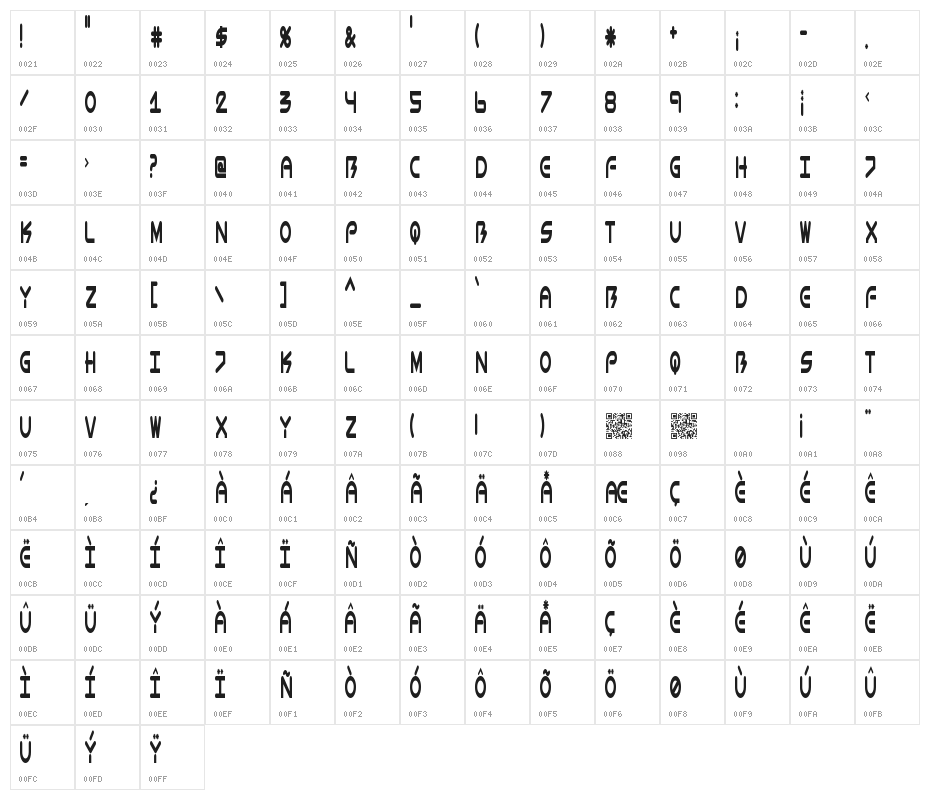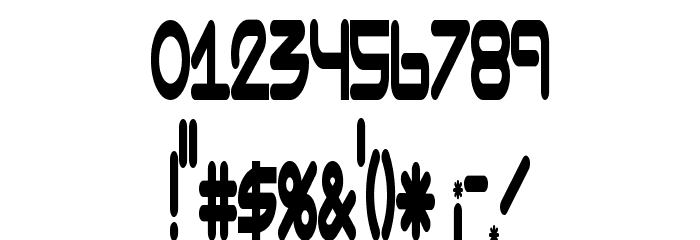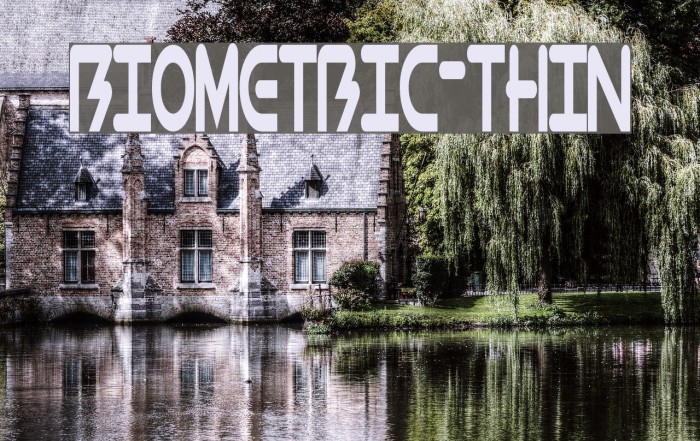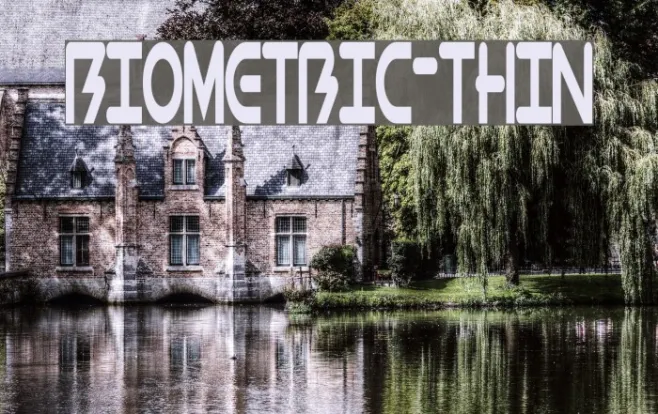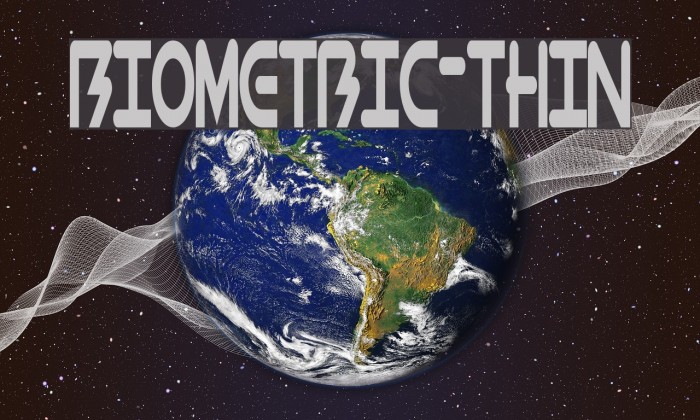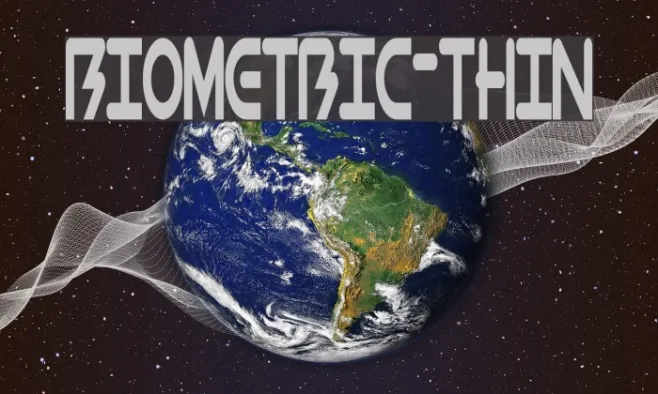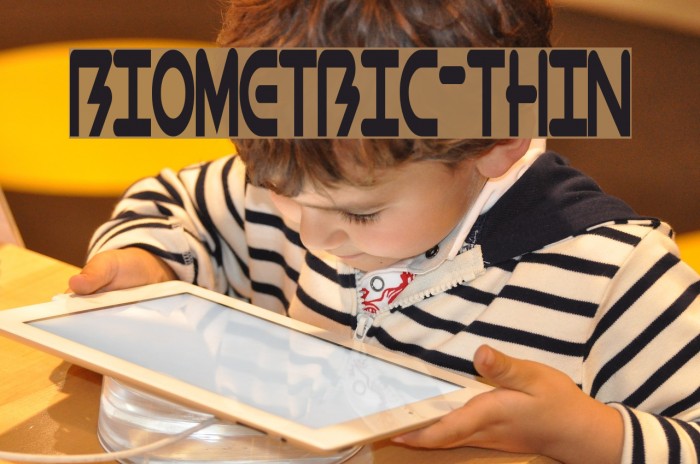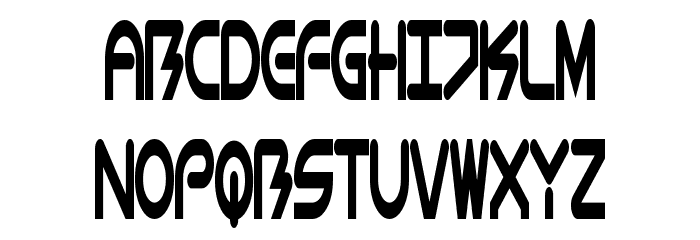
BioMetric-Thin Font
BioMetric-Thin Description
This font features a futuristic and geometric design with a distinct, angular style. The characters are bold and have a unique, almost stencil-like appearance, with certain letters incorporating sharp angles and cutouts that give them a modern, tech-inspired look. The uppercase and lowercase letters maintain a consistent style, while the numbers and special characters complement the overall aesthetic. The font's design is both striking and functional, making it suitable for a variety of creative applications.
| Proposed Projects | Ideal for technology branding, sci-fi themed projects, video game interfaces, and modern advertising campaigns. |